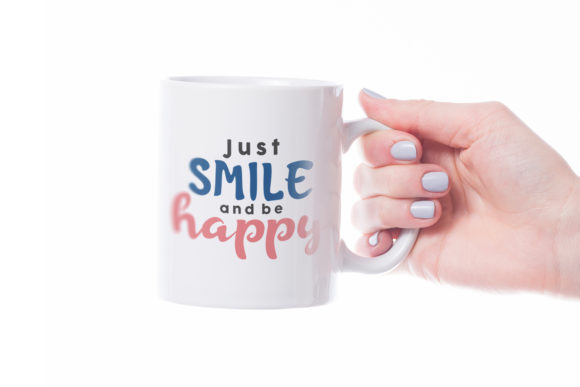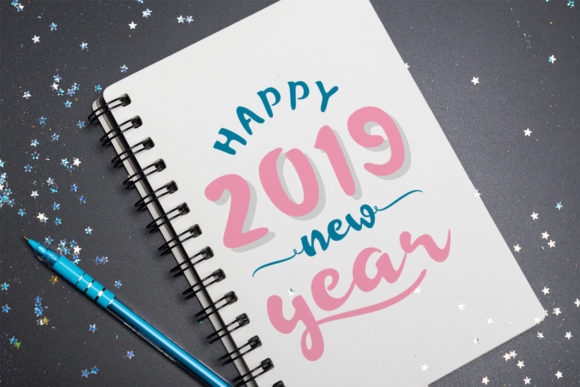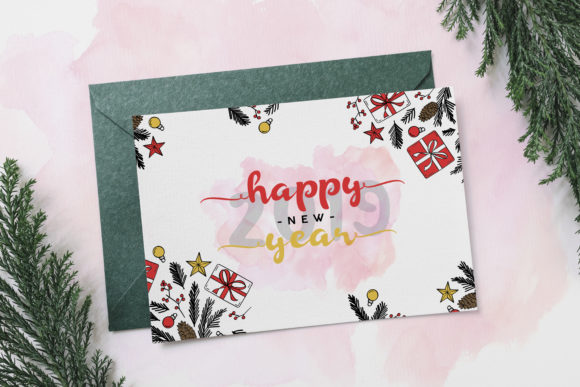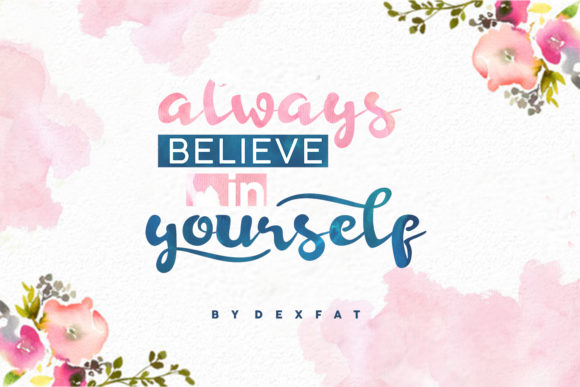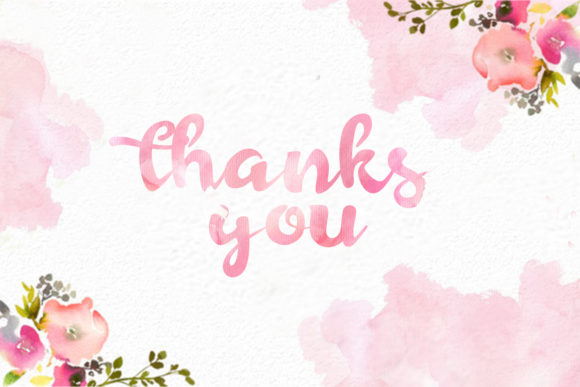
Introduction to Shella Script Font
Have you ever been working on a creative project, pouring your heart and soul into it, and then suddenly, you stumble upon the perfect font? That’s exactly what happened to me when I discovered the Shella Script Font. Its beautiful, handwritten style and stunning swashes instantly elevated my design to the next level.
As a designer, I can attest that finding the right font can make all the difference in a project. And when it comes to creating a unique and eye-catching design, the Shella Script Font is an absolute gem. With its elegant feel and high-quality design, this font is a must-have for any design resource. Plus, with a free download available, it’s accessible to designers of all levels.
Whether you’re working on a design project that requires a touch of whimsy or sophistication, the Shella Script Font is sure to impress. Its transparent background and high-quality design make it perfect for any creative project, from wedding invitations to brand logos.
Key Features of Shella Script Font
- High-quality, elegant script font suitable for creative projects and design resources.
- Available for free download with a transparent background, allowing for easy integration into various designs.
- Designed with a delicate, cursive style, perfect for adding a touch of sophistication to your design.
- Perfect for use in various design projects, from wedding invitations to branding materials, and more.
Honest Review: Shella Script Font
As a designer, I’m always on the lookout for high-quality design resources to elevate my creative projects. Recently, I stumbled upon the Shella Script Font, and I’m excited to share my thoughts on this beautiful font.
What works well: ✨ The Shella Script Font has a unique, elegant feel that’s perfect for a variety of projects, from wedding invitations to branding materials. The font is also highly customizable, allowing you to adjust the size, color, and spacing to suit your needs.
However, there are some limitations: ⚠️ The font is not suitable for all types of projects, particularly those requiring a more straightforward, sans-serif font. Additionally, the font’s file size can be quite large, which may impact website loading times.
Overall impression: I’m impressed with the Shella Script Font’s versatility and beauty. While it may not be the perfect fit for every project, it’s an excellent design resource to have in your arsenal. With a little creativity, the Shella Script Font can add a touch of sophistication to any creative project.
Tips for Getting the Most Out of Shella Script Font
Experiment with different font sizes, colors, and styles to create unique and eye-catching designs. Combine the Shella Script Font with other fonts to add depth and variety to your designs.
The Shella Script Font is perfect for creating beautiful graphics, quotes, and typography for creative projects. It’s also great for designing logos, branding materials, and marketing materials.
Alternatives to Shella Script Font
Great Vibes is a beautiful, high-quality script font that’s perfect for creative projects requiring a touch of elegance. It features a transparent background and can be easily customized to suit your design needs. Great Vibes is ideal for use in logos, branding materials, and other design elements where a sophisticated, handwritten feel is desired. In comparison to Shella Script Font, Great Vibes has a more refined and polished look, making it suitable for a wider range of design applications.